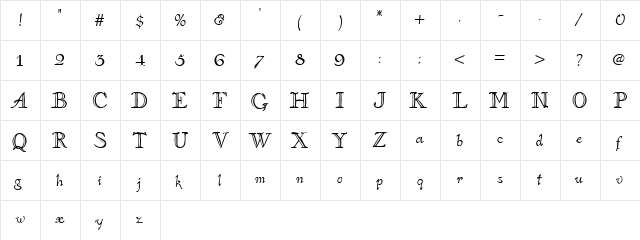
Interlude Regular
Design Context for Interlude Typeface
Interlude is a composed and adaptable typeface that performs quietly and consistently across a wide range of design contexts.